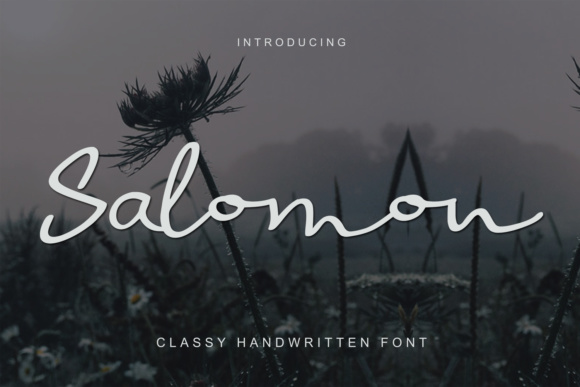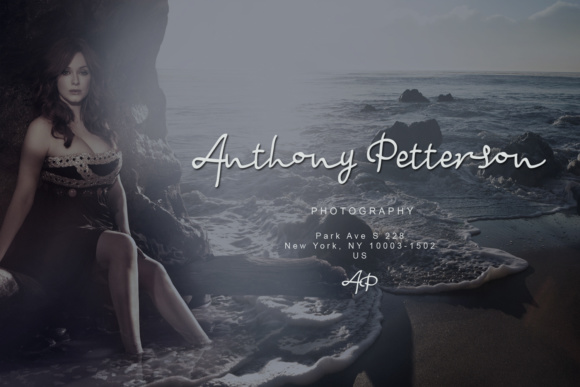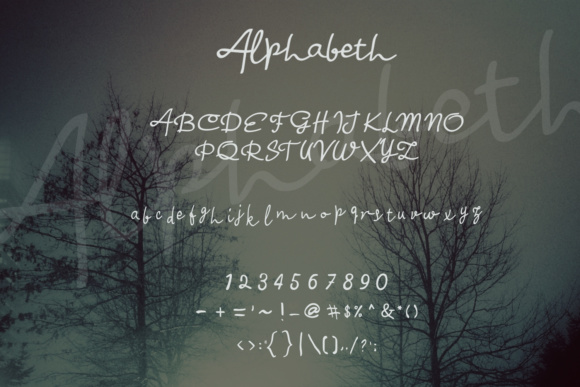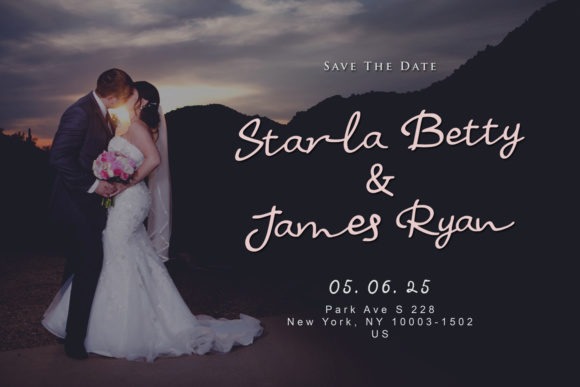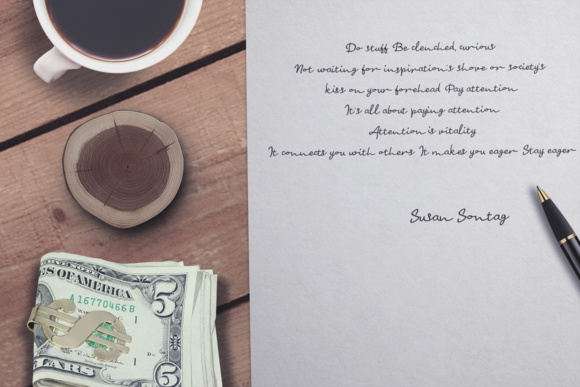
Salomon Font
About Salomon Font
Salomon is inspired by sign handwriting. It is very suitable for branding, head banners, wedding invitations and much more!